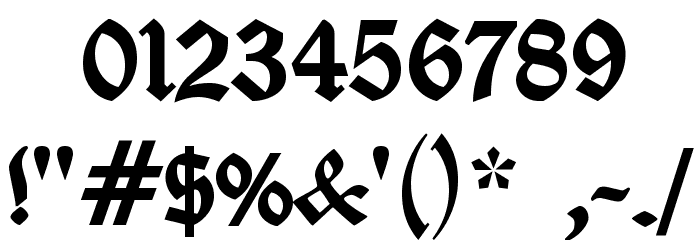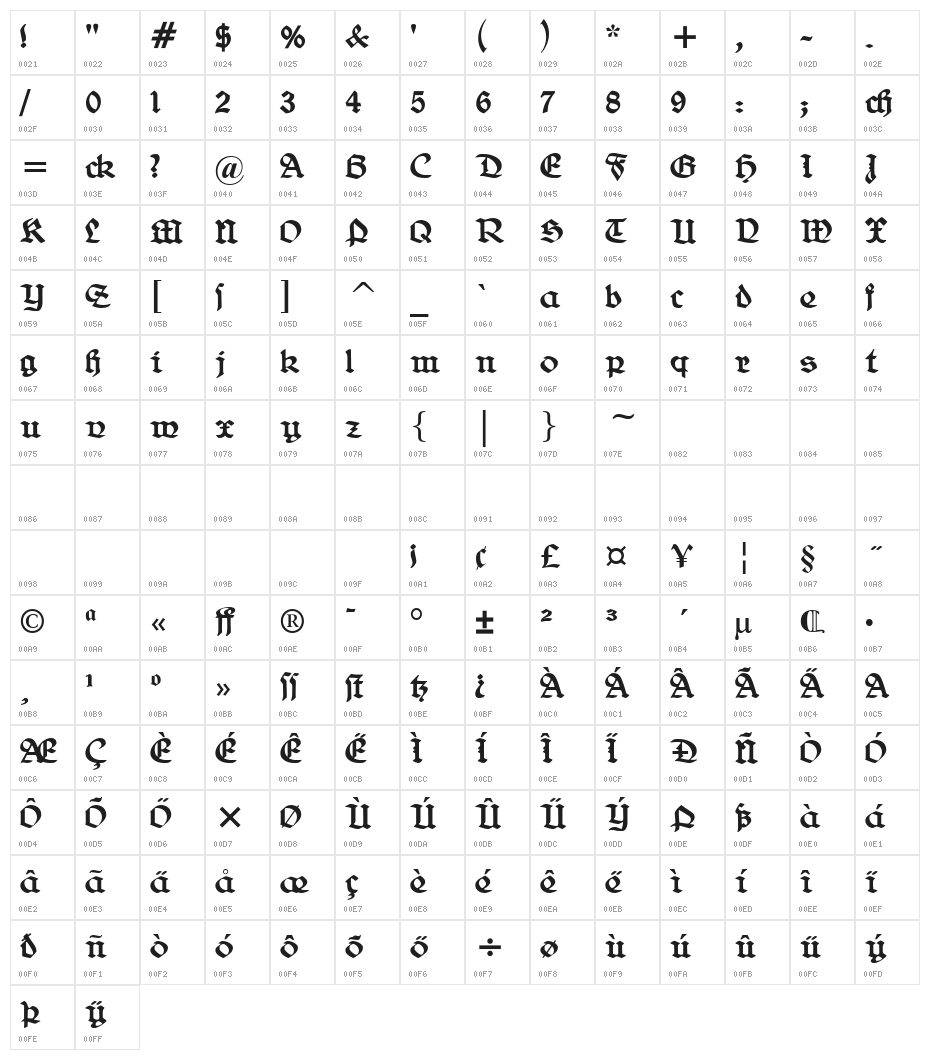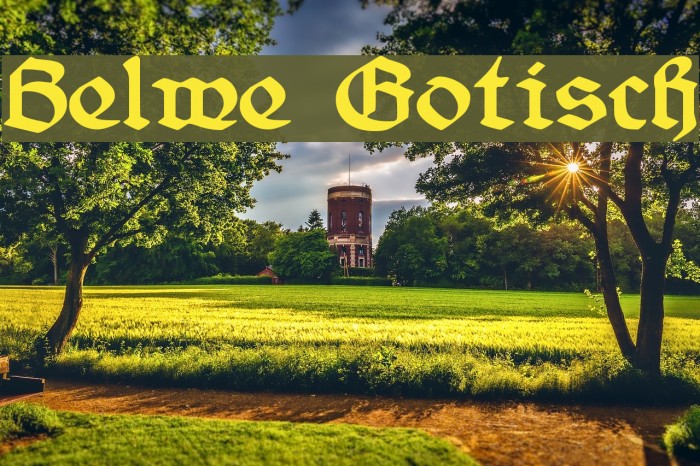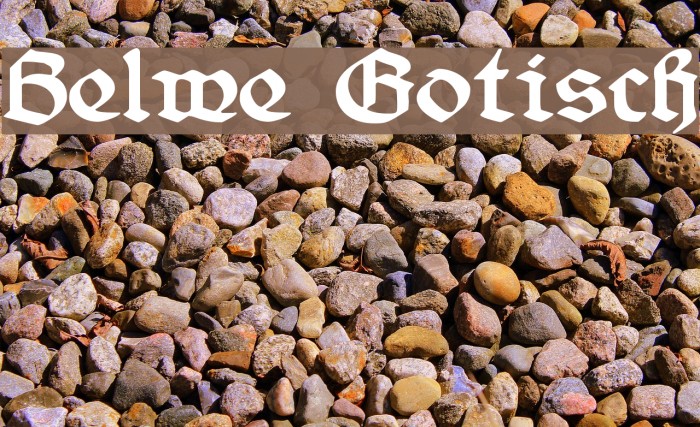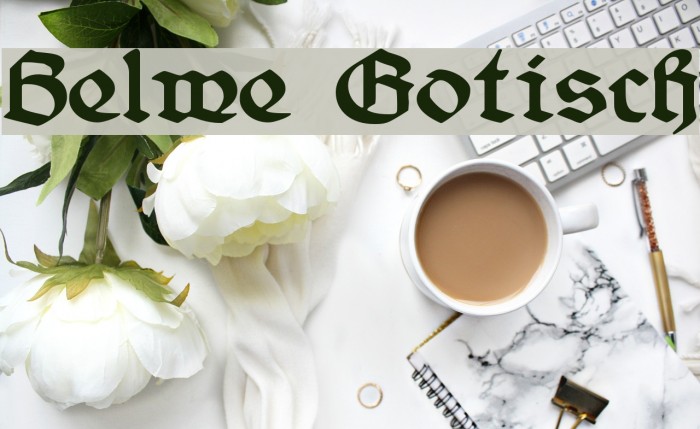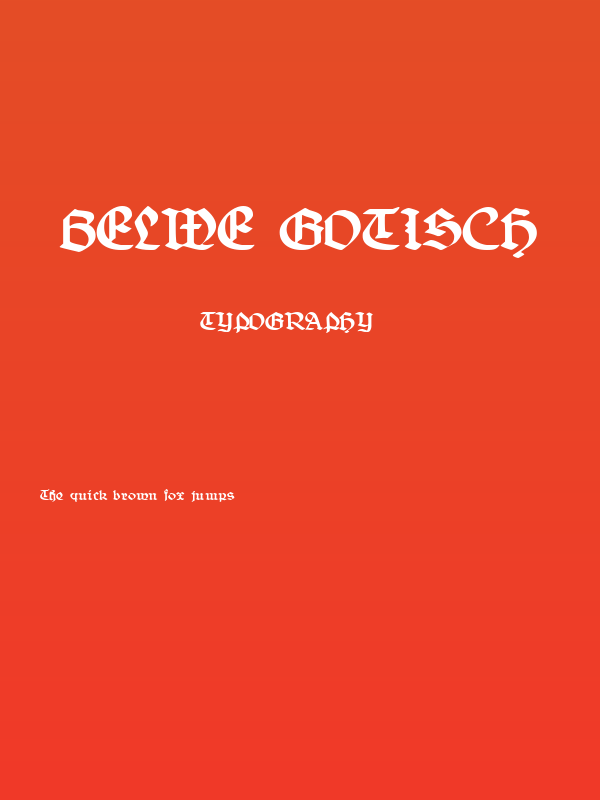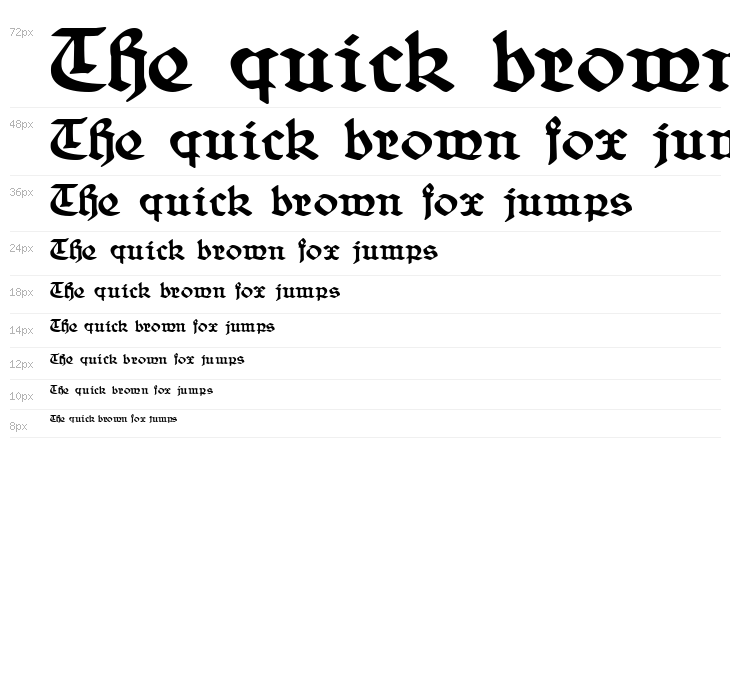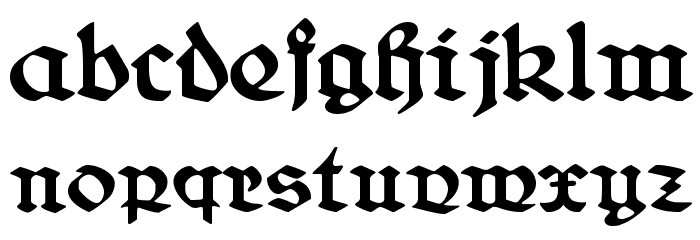
Belwe Gotisch Font
Belwe Gotisch Description
This font exhibits a classic Blackletter style, characterized by its ornate and intricate design. The letters are bold and angular, with sharp edges and elaborate detailing that give it a medieval, gothic appearance. The uppercase letters are particularly striking, with strong vertical lines and decorative serifs. The lowercase letters maintain the same level of detail, ensuring consistency throughout the typeface. Numbers and special characters are equally stylized, fitting seamlessly with the overall aesthetic. This font is perfect for projects that require a historical or dramatic flair, such as invitations, posters, or branding for themed events.
| Use Case | Headlines, Logos, Decorative text |
| Proposed Projects | Ideal for historical-themed designs, gothic posters, invitations, and branding for events requiring a dramatic flair. |